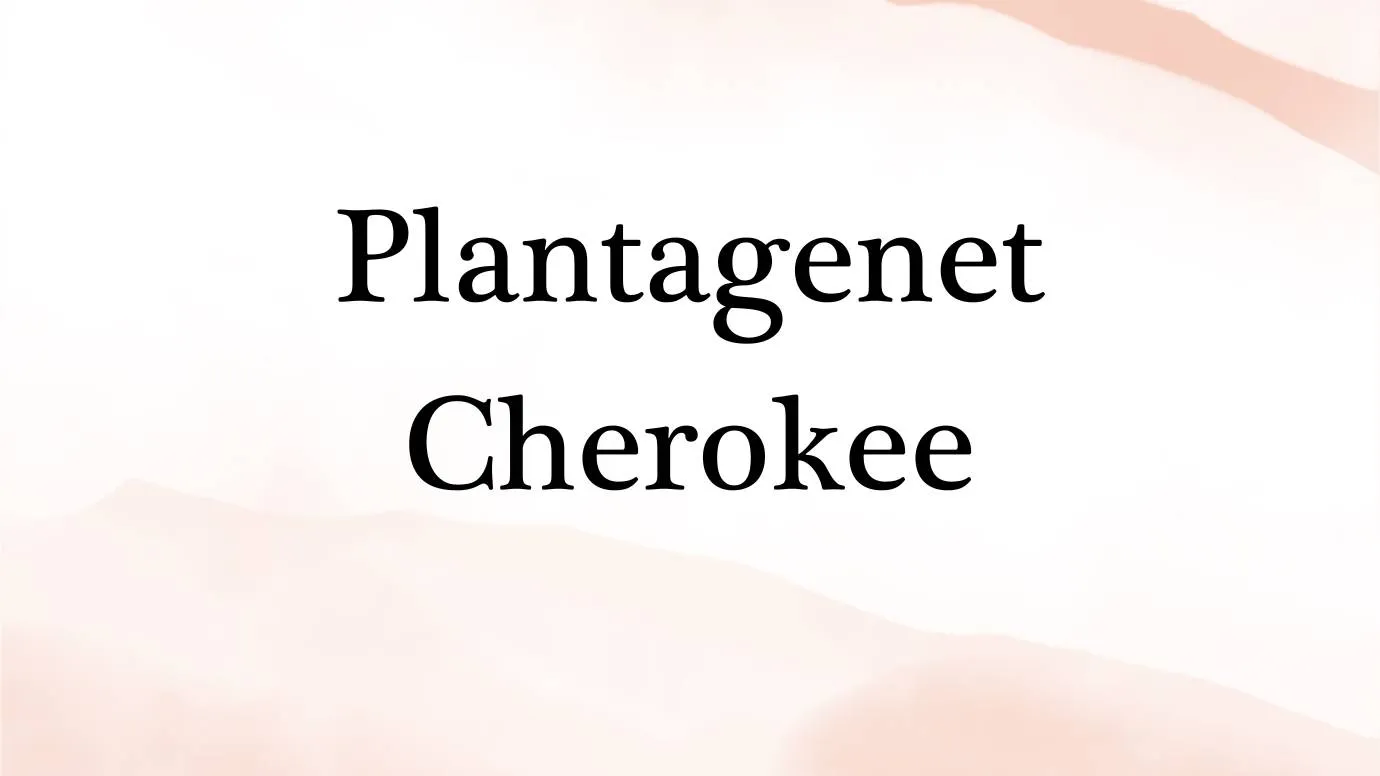
Plantagenet Cherokee Font Family is a contemporary and stylish typeface that has gained popularity in the design market. Crafted by the renowned designer Ross Mills, this premium quality font is composed of 8 variations, such as Light Italic, Book Italic, Medium Italic, among others.
This font family is the most considered typeface for making ultra-modern designs and Content writing the same as the Calibri font.
Plantagenet Cherokee Font Family